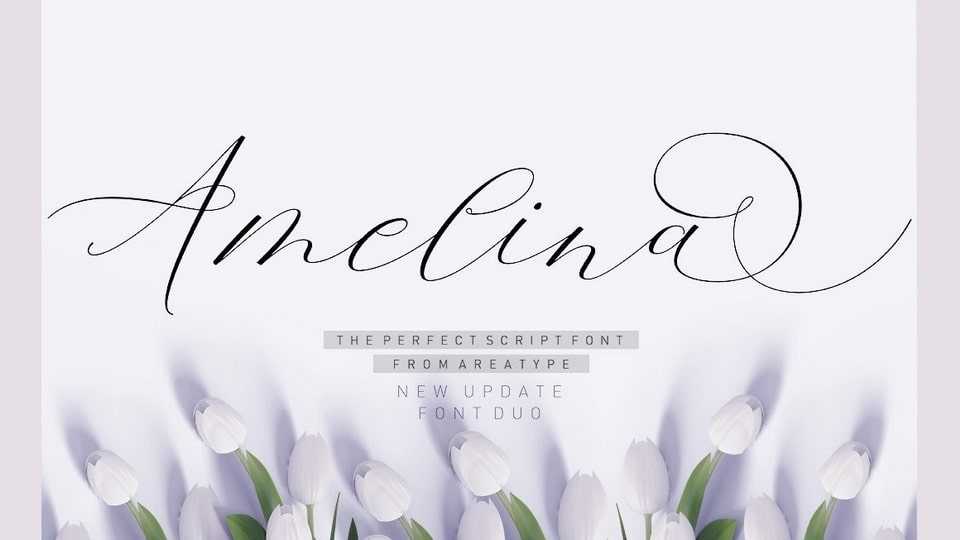
Download Amelina font, a lovely duo script typeface. It looks beautiful on a variety of designs requiring a personalized style, such as wedding invitations, thank you cards, greeting cards, logos, and so on.